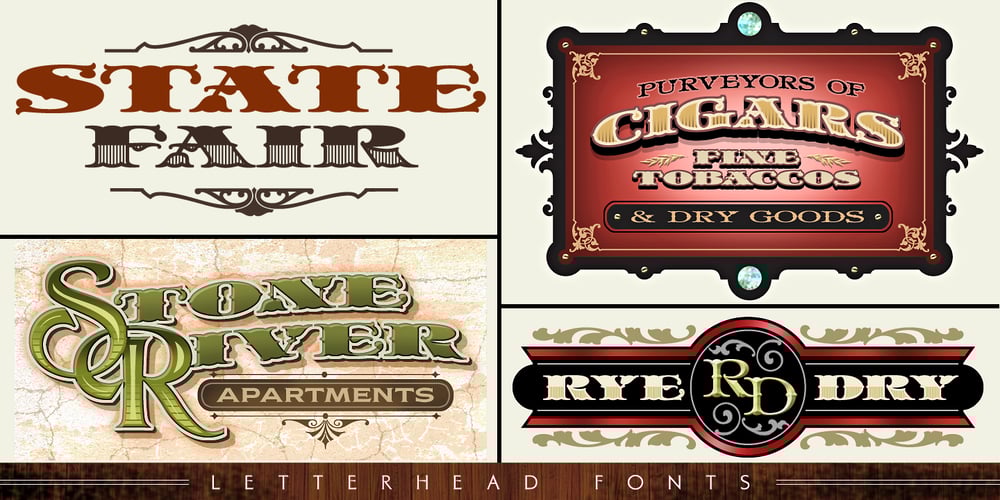
LHF State Fair Font Family was designed by Mike Jackson and published by Letterhead Fonts. LHF State Fair contains 3 styles and family package options. Reminiscent of lettering used on old stock certificates from the late 1800’s. With its extra wide letters and ornate features, LHF State Fair commands attention. Get over 60 bonus panels and ornaments when you purchase the set (Regular, Lined & Light).